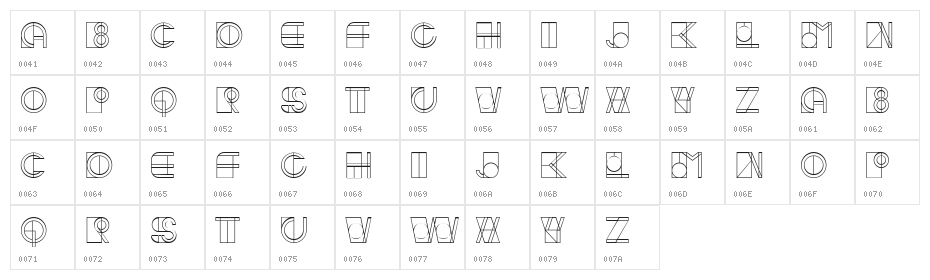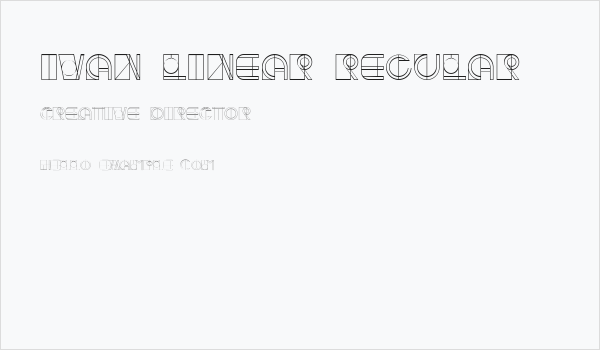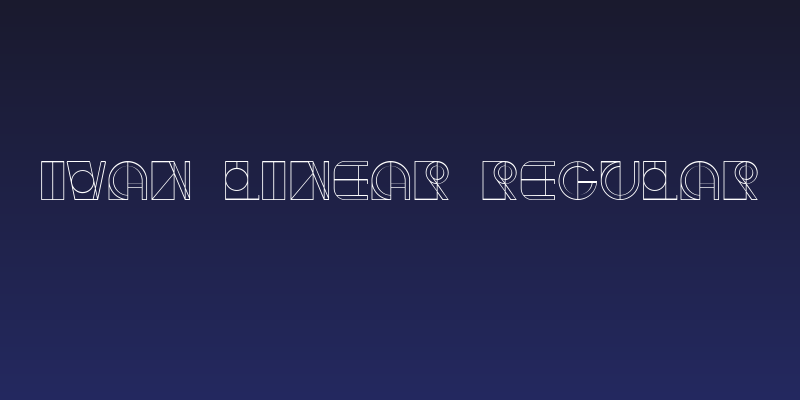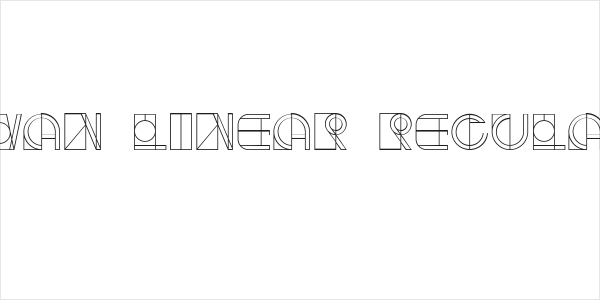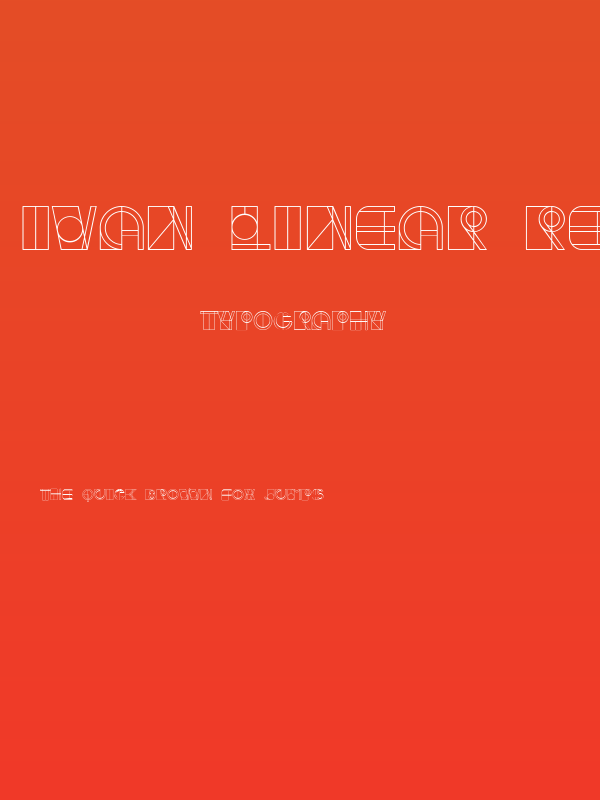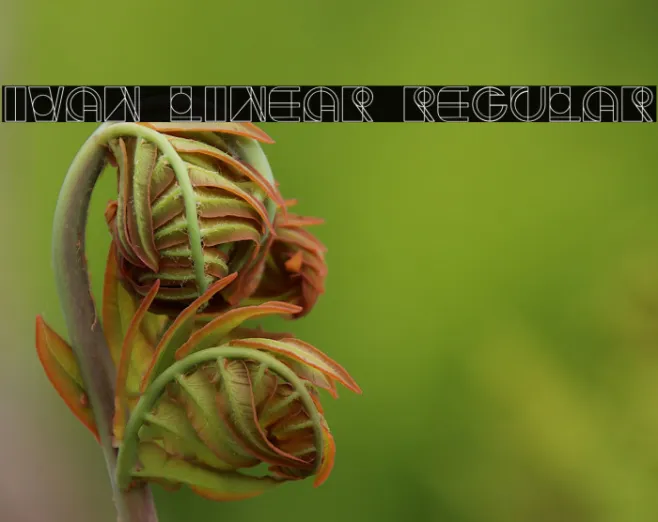
Ivan Linear Regular Font
Ivan Linear Regular Description
This font features a geometric and linear design, characterized by its use of clean lines and structured forms. Each letter is crafted with precision, incorporating elements of circles and straight lines to create a modern and futuristic appearance. The uppercase letters exhibit a consistent height and width, contributing to a uniform look across the alphabet. The font's minimalist style is accentuated by its lack of serifs and its emphasis on symmetry and balance. This design is ideal for projects that require a contemporary and sleek aesthetic, making it suitable for branding, advertising, and digital media.
| Overall Style | Modern, Futuristic |
| Proposed Projects | Ideal for branding, advertising, digital media, and modern design projects. |